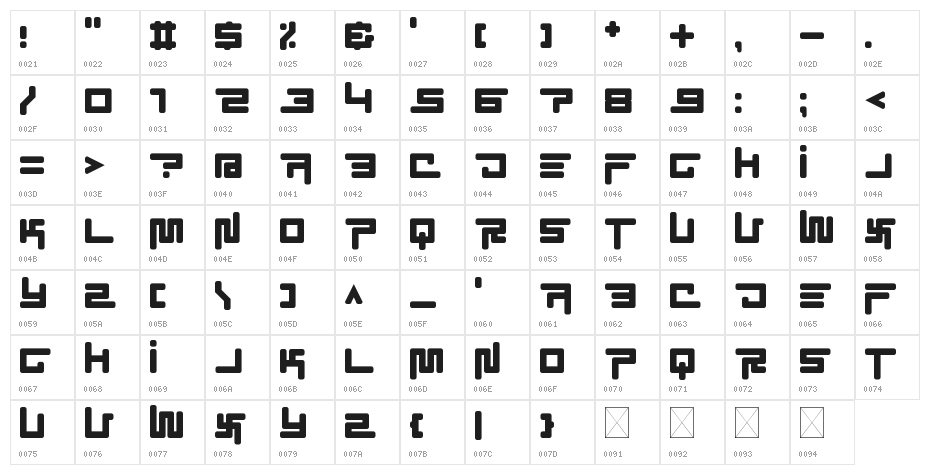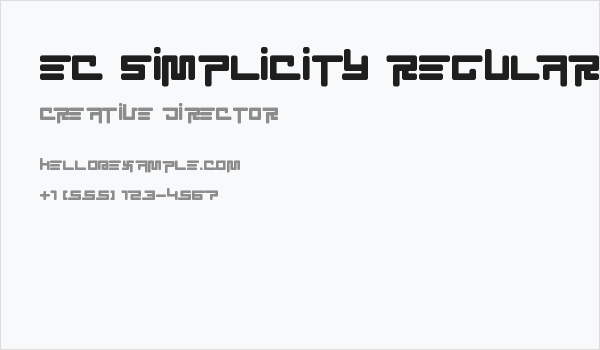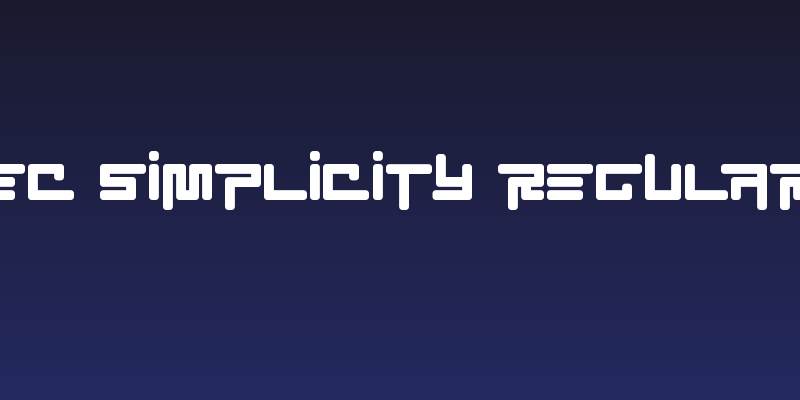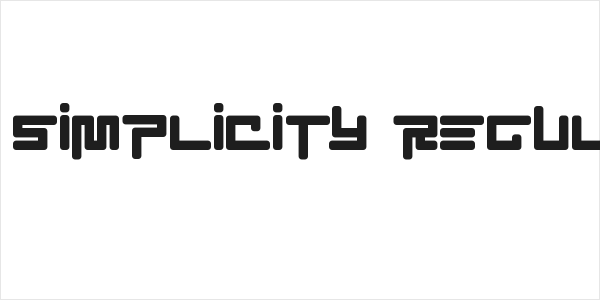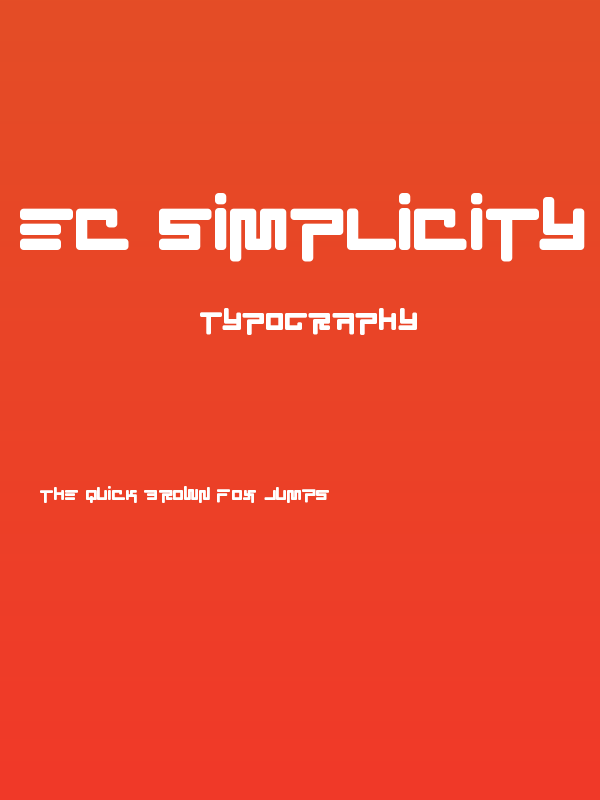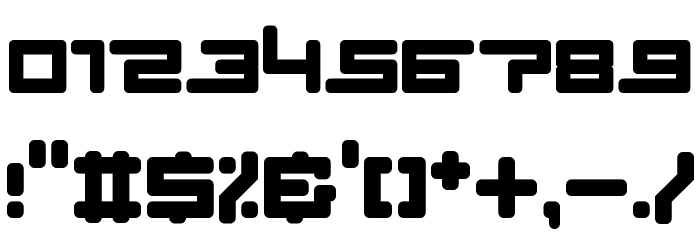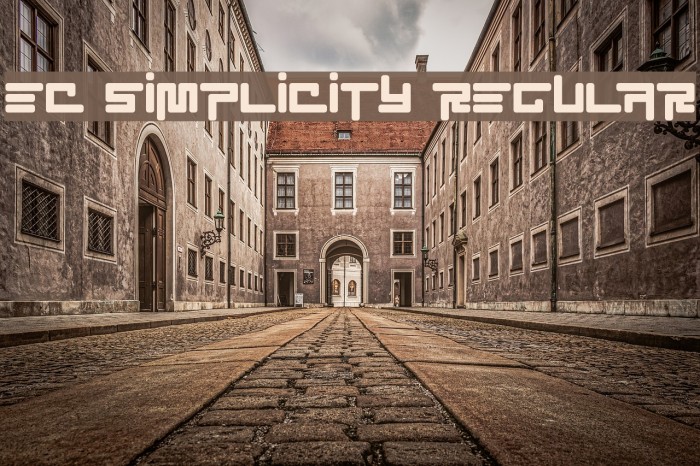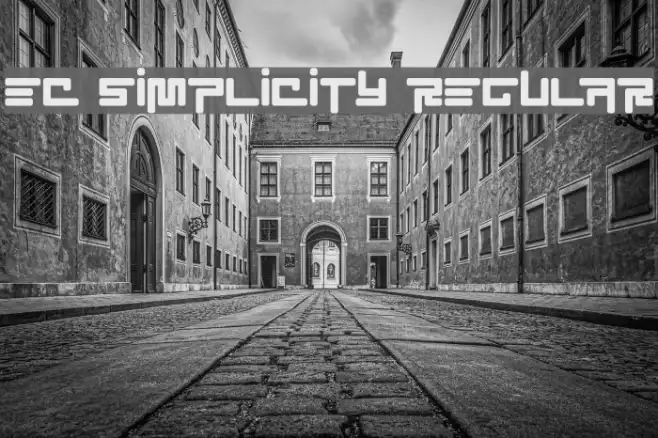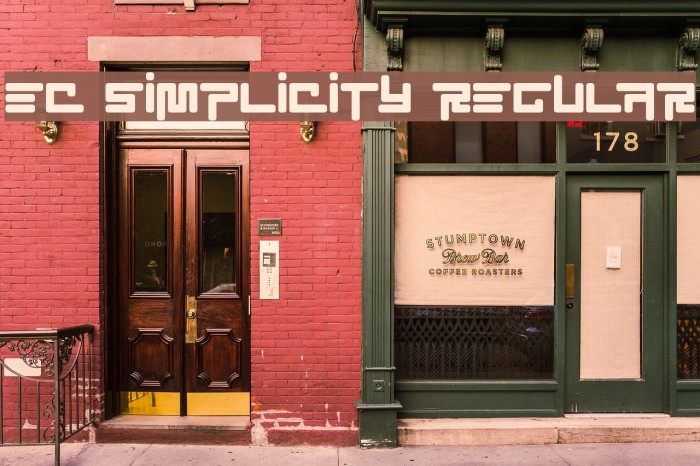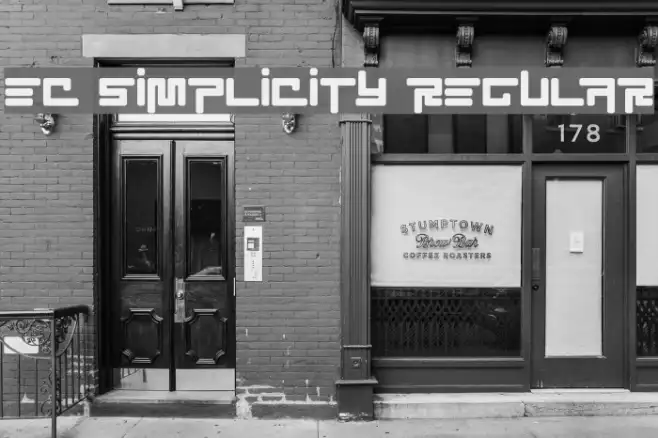
EC SimpliCity Regular Font
EC SimpliCity Regular Description
This font features a bold, futuristic design with rounded edges and a geometric structure. The characters are uniformly thick, creating a strong visual impact. The style is reminiscent of digital or technological themes, with a modern and clean appearance. The uppercase and lowercase letters maintain a consistent height, contributing to a cohesive look. The numerals and special characters follow the same design principles, ensuring uniformity across all glyphs. The font's distinct appearance makes it suitable for projects that require a contemporary and innovative feel.
EC-SIMPLICITY-REGULAR UPPERCASE
EC-SIMPLICITY-REGULAR LOWERCASE
EC-SIMPLICITY-REGULAR OTHER CHARS
| Proposed Projects | Ideal for technology branding, digital interfaces, video game titles, and modern advertising. |